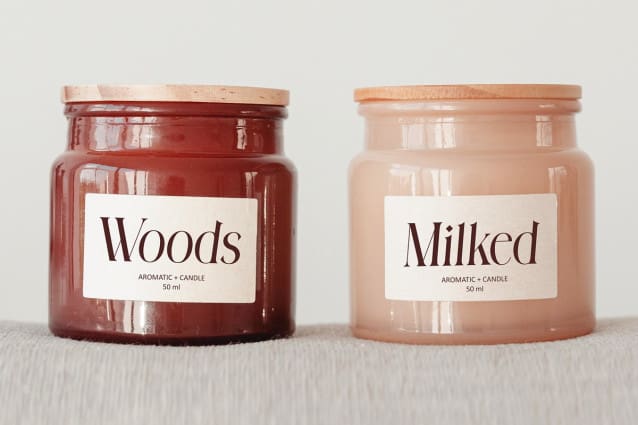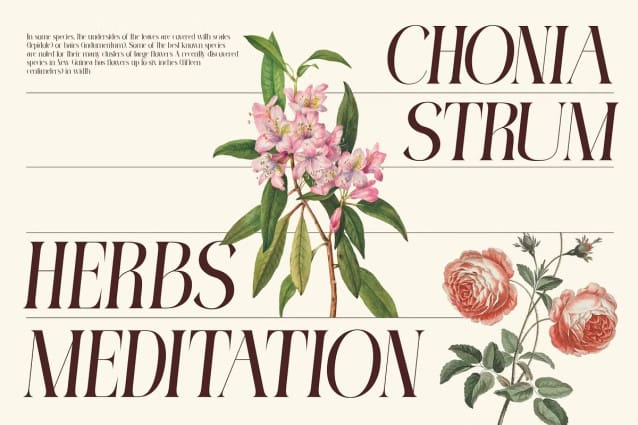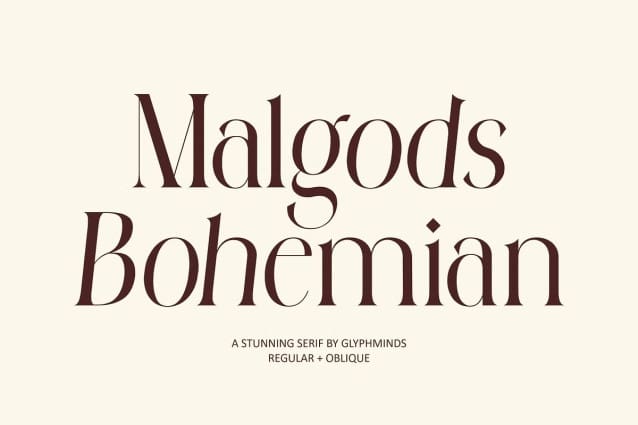
Malgods Bohemian Font
Malgods Bohemian Font, a stunning serif font that effortlessly blends classic elegance with a modern twist. Perfect for everything from luxurious branding to sophisticated editorial layouts, this typeface is designed to captivate and inspire. With both regular and oblique versions, Malgods Bohemian offers versatility, allowing you to create unique and striking visuals that stand out. Ideal for designers, creatives, and brands seeking to make a lasting impression, this font brings a touch of timeless beauty to any project. Don’t miss out on adding this refined typeface to your toolkit—let Malgods Bohemian transform your design work into a masterpiece.